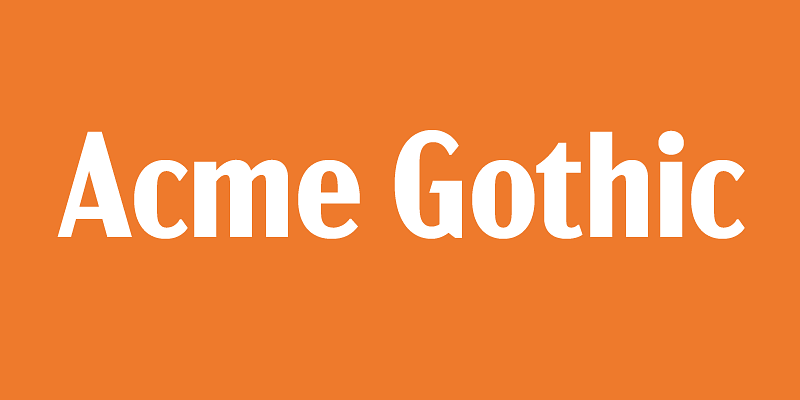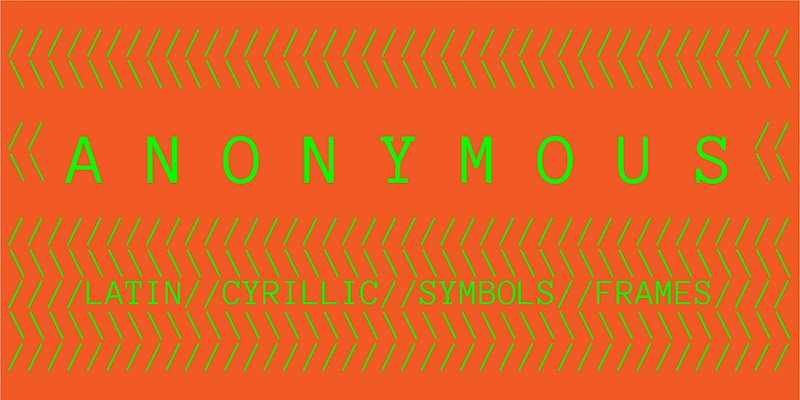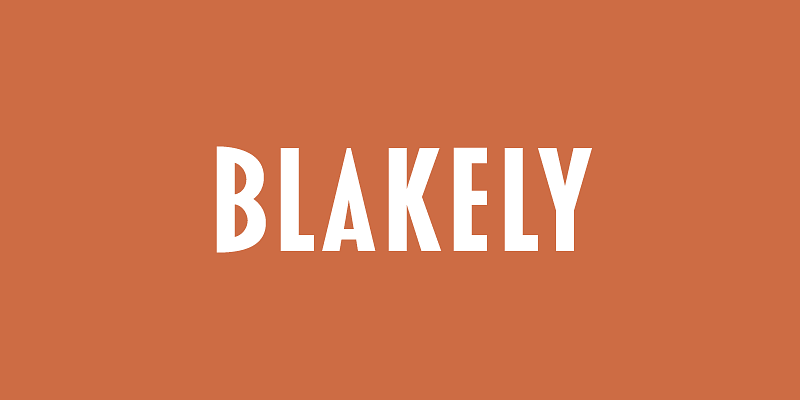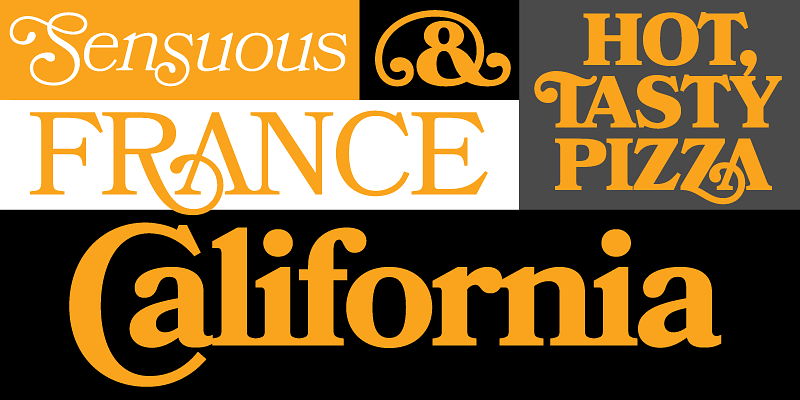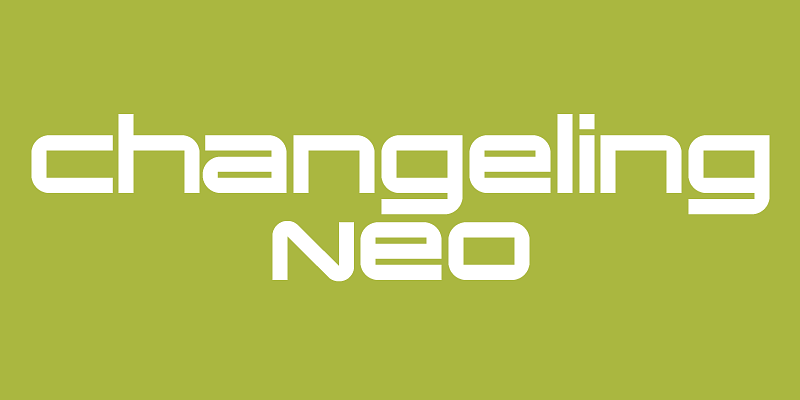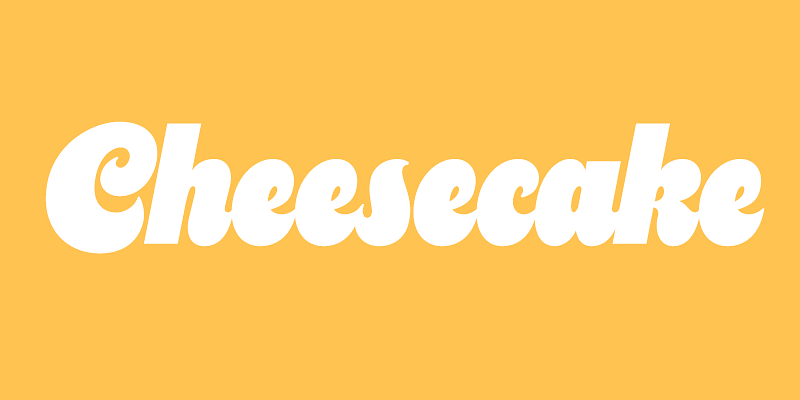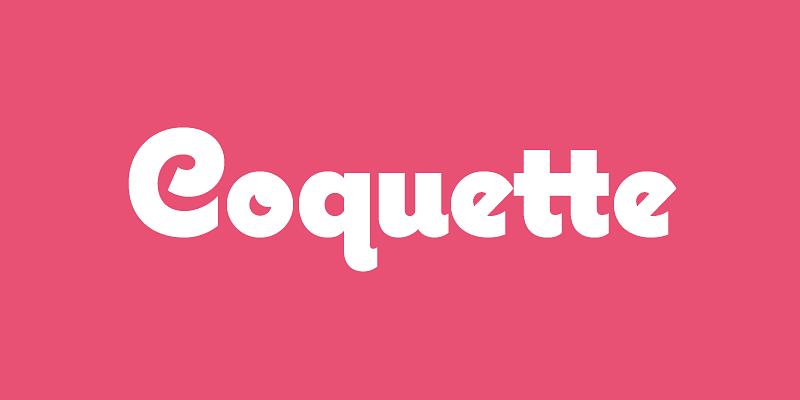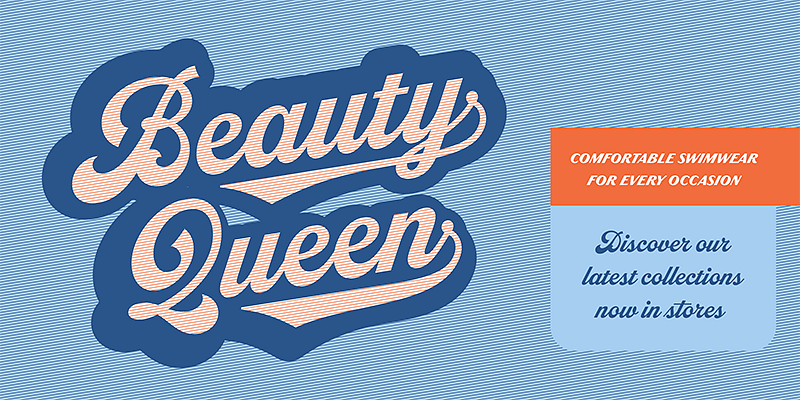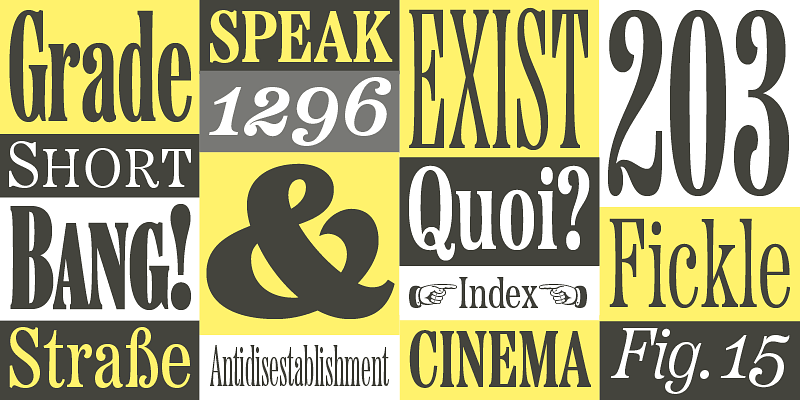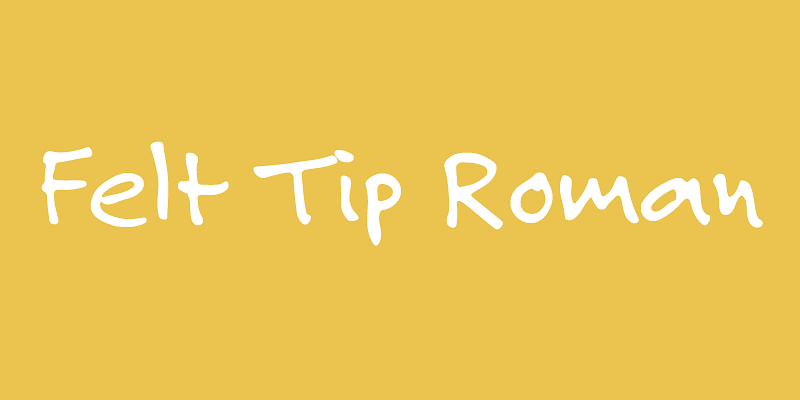
Acme Gothic (2018) is based on the thick-and-thin gothic lettering style popular in the U.S. in the first half of the twentieth century. There have been typefaces in this genre before, but they were either too quirky (Globe Gothic), too English (Britannic), too Art Deco (Koloss), too modern (Radiant), or too Art Nouveau (Panache). None captures the plain, workman-like, vernacular style of Acme Gothic. There are five widths (Compressed, Condensed, normal, Wide, and Extrawide) each with five weights (Light, Regular, Semibold, Bold, and Black) for a total of 25 different styles.
Mark Simonson Studio
Mark Simonson Studio is a type foundry founded by Mark Simonson, known for creating the Proxima Nova typeface and a variety of other unique typefaces. The studio focuses on designing fonts that serve as practical tools for designers.
Anonymous Pro (2009) is a family of four fixed-width fonts designed with coding in mind. Anonymous Pro features an international, Unicode-based character set, with support for most Western and Central European Latin-based languages, plus Greek and Cyrillic. Anonymous Pro is based on an earlier font, Anonymous™ (2001), my TrueType version of Anonymous 9, a Macintosh bitmap font developed in the mid-’90s by Susan Lesch and David Lamkins. Anonymous Pro is distributed with the Open Font License (OFL). There are two versions: Anonymous Pro and Anonymous Pro Minus. Anonymous Pro contains embedded bitmaps for smaller sizes, Anonymous Pro Minus does not. More info about this in the Usage Notes.
Blakely (2000, 2003) was originally developed as a custom font based on a logo I designed in the early ’90s for the Signals mail order gift catalog. It’s a condensed, sans serif Art Deco design, similar in some ways to Kabel Condensed and Newport, both from around 1930. It’s a caps-only design, and the spacing is optimized for all-caps settings, nearly letter-spaced in the Light weight. I added the Bold and Black weights in 2003, which were in the back of my mind from the beginning.
Bookmania (2011) combines the sturdy elegance of the original Bookman Oldstyle (1901) with the swashy exuberance of the Bookmans of the 1960s. With over 680 swash characters, more than any previous Bookman, the possibilities are endless. The broad range of weights make it great for display use, but it also works well for text. Unlike some Bookman revivals, it retains the original classic sloped roman for the italic. Bookmania includes all the features you would expect in a modern digital font family. **Download the Bookmania Cookbook [here](https://www.marksimonson.com/assets/content/fonts/BookmaniaCookbook.pdf).** **Download the Bookmania Specimen [here](https://www.marksimonson.com/assets/content/fonts/BookmaniaSpecimen.pdf).**
Changeling Neo (2008, originally released as Changeling in 2003) is my redesign and expansion of China, a VGC Photo-Typositor face released 1975. China had only one weight (similar to Changeling Neo Bold) in all-caps with only a few alternate characters. In Changeling Neo, I redesigned many characters for better type color. I also added a complete set of lowercase-style variants, providing endless “unicase” combinations. I also added four more styles—Light, Regular, Stencil, and Inline.
Cheesecake (2024) is an ultra-bold script inspired by lettering of the sixties and seventies. It’s a design that Mark Simonson found himself compulsively drawing during the development of Dreamboat (2022). Cheesecake is simpler and less formal—almost a caricature of the style—with a larger x-height and more extreme forms. It has an alternate to the default cursive-style lowercase “s” and a full set of dingbats. It’s keen for branding, advertising, posters, book covers, packaging, and the like.
Coquette (2001, 2017) is an unconnected upright script, a sort of hybrid between French scripts, such as Typo Upright, and 1930s-era geometric sans serifs, such as Kabel. The idea for this typeface came to me in the early ’90s while I was designing a logo. It took me several tries over several years to get it to look the way I wanted it to, a process that taught me a lot about type design and drawing letters. Since its release, it’s become one of my more popular fonts, which is very gratifying since it’s my favorite of all the fonts I’ve designed. In 2017, I expanded the original three weights (Light, Regular, and Bold) to six with the addition of Thin, Extrabold, and Black. I also added several alternate characters (lowercase b, o, s, and ampersand) as well as arbitrary fractions, superscript, a full set of f-ligatures, and a bunch of math characters which were not included in earlier versions.
Dreamboat (2022) is typeface nearly 20 years in the making, It’s my take on the bold script style popular during the first few decades of the 20th century and revived later in custom lettering and logos starting in the 1960s, sometimes evolving into psychedelic or pop-art forms. Numerous familiar trademarks and brands still sport this style of lettering like Ford, Coca-Cola, Schlitz and any number of baseball club logos. The original single style would become the Bold weight and the full family expanded into six weights, ranging from Light to Black. There are numerous features like small caps, tails, and an alternate lowercase t with a high crossbar. Dreamboat is ready to knock your branding out of the park.
Etna (2020) was inspired by the Aetna wood type style of the late nineteenth century. Etna tames this quirky Victorian design into a complete family suitable for modern use, adding a full range of six weights and italics, allowing it to work equally well for both text and display. Etna includes three different condensed widths in all six weights (intended for display use), four different figure styles, alternate characters, true small caps, and a selection of dingbats, including arrows, stars, asterisks, and manicules (pointing hands).
Felt Tip Roman (1992, 2003) is one of my most popular fonts, and the first font I ever released. It’s my own handwriting carefully digitized by hand (not auto-traced). Handwriting fonts are very common now, but they weren’t in 1989 when I started working on it. I just wanted to (Thank you, Mark Solsburg of FontHaus for encouraging me to release it.) I added two more weights, Bold and Heavy, in 2003 to create a more versatile set of fonts.